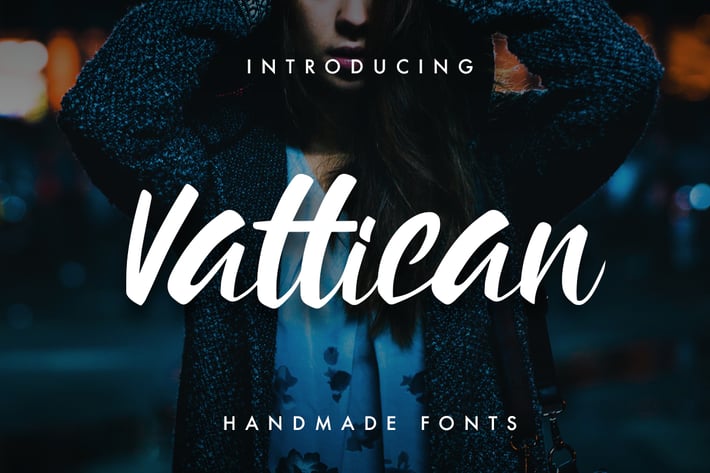
Vattican - Handmade Brush font
We Provide You one of the best Stylish Hand Written Script.
Best match for logos, header, Titles, Prints & other Creative process possibilities.
Create a Extraordinary Typography / lettering results by using Vattican Handmade Font Script
- Clean Results